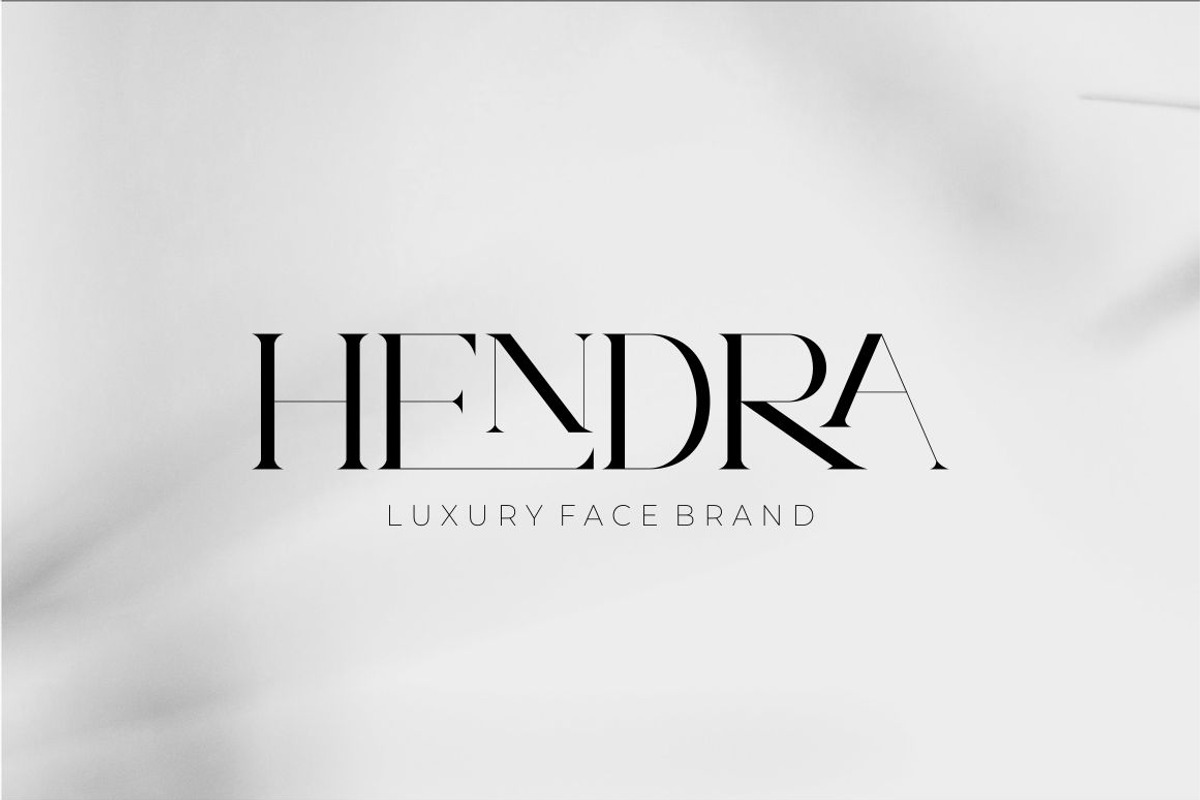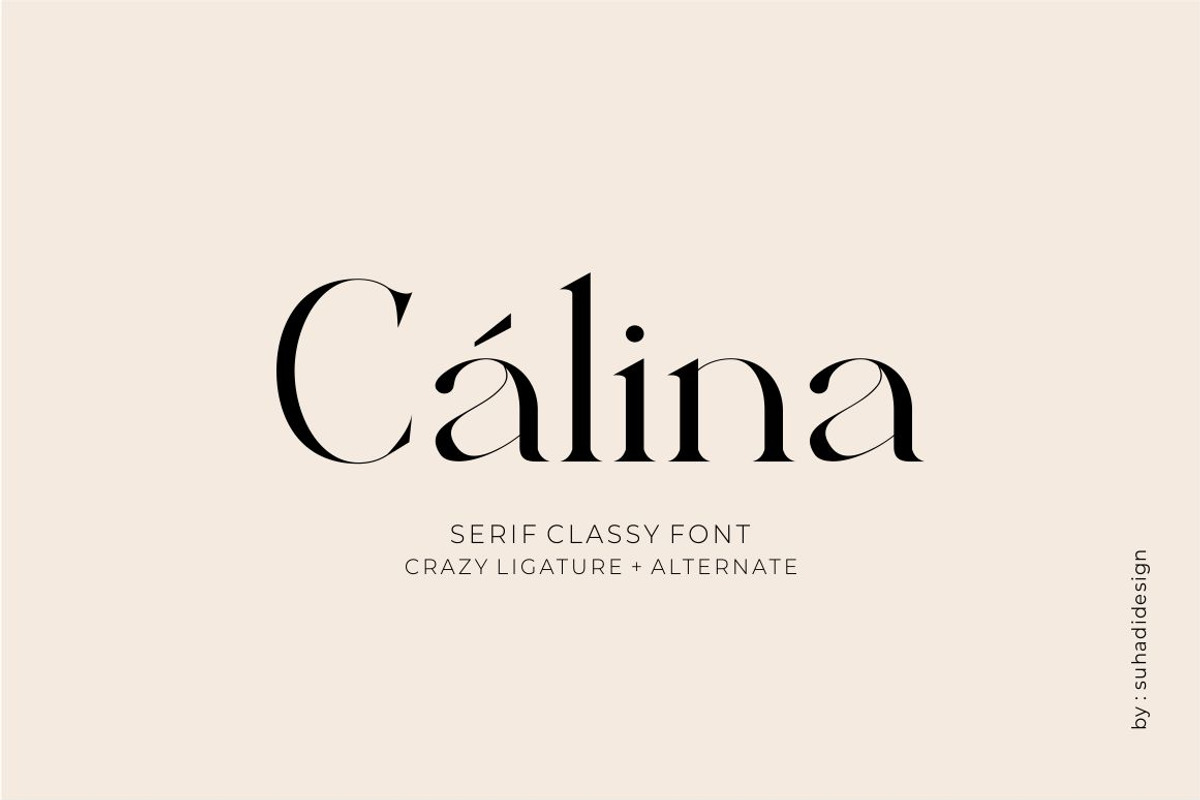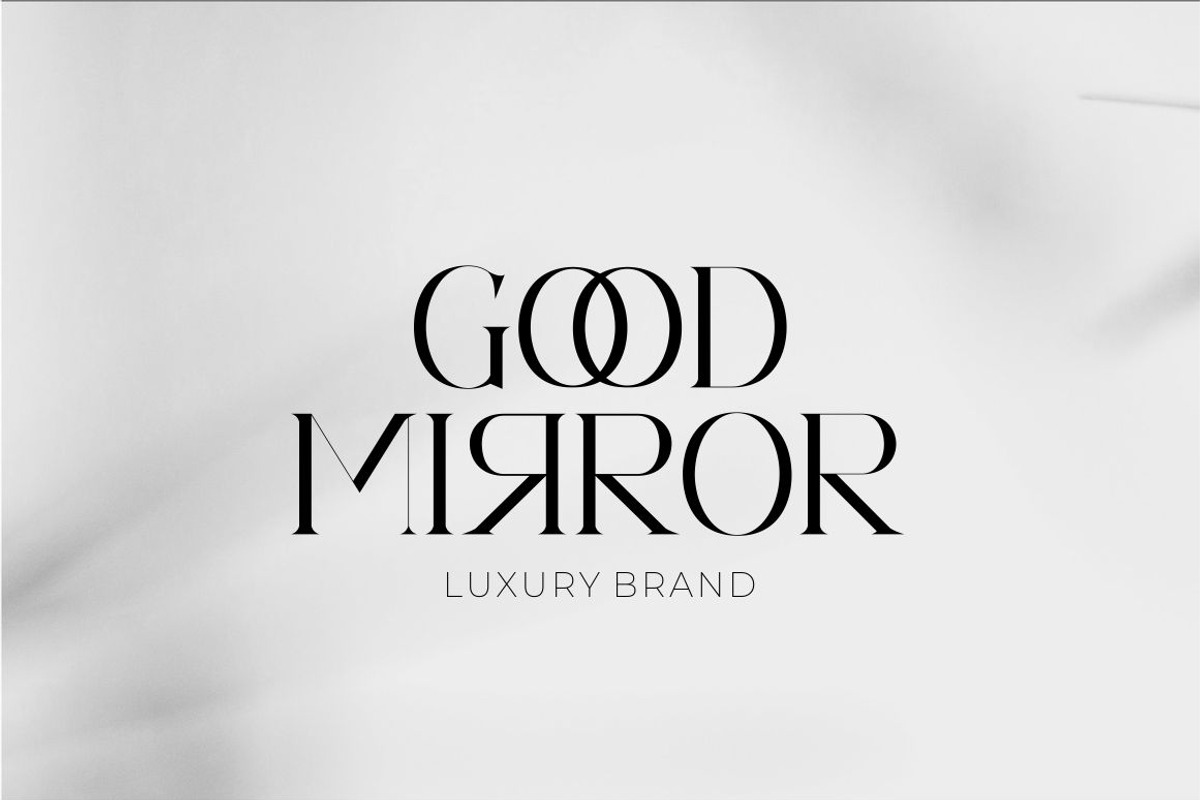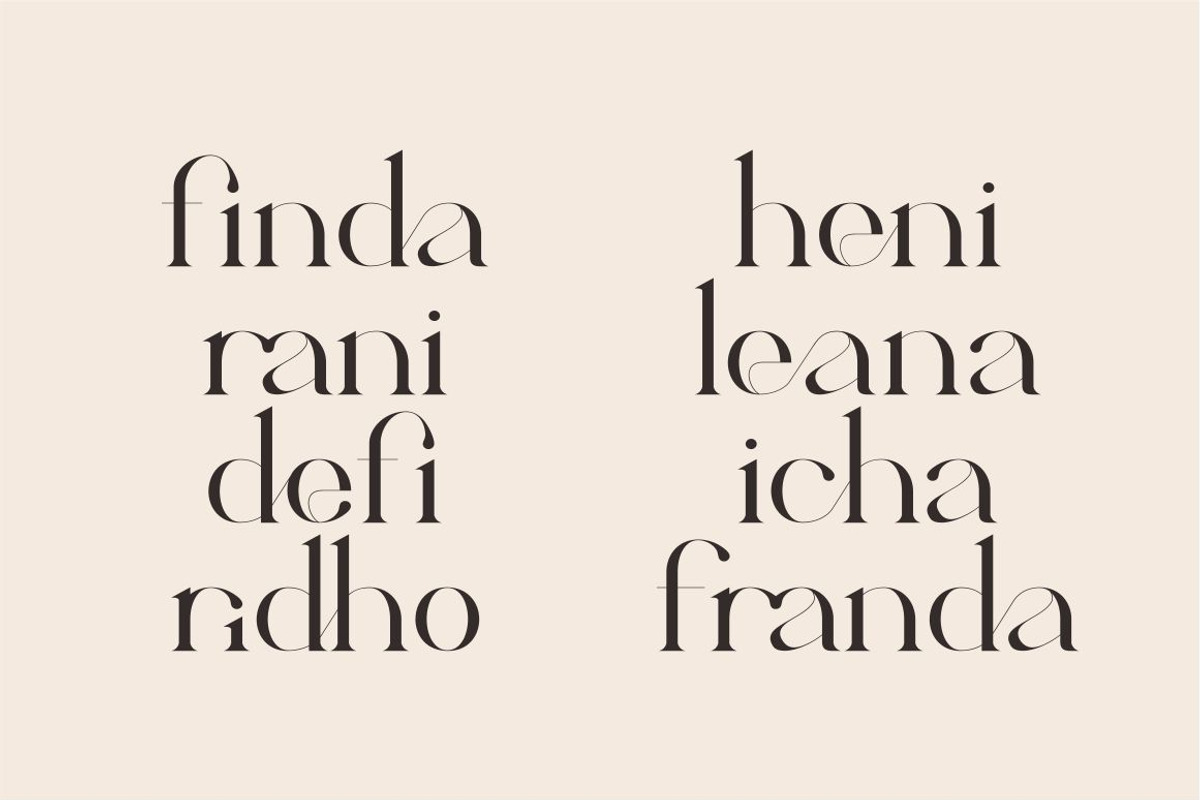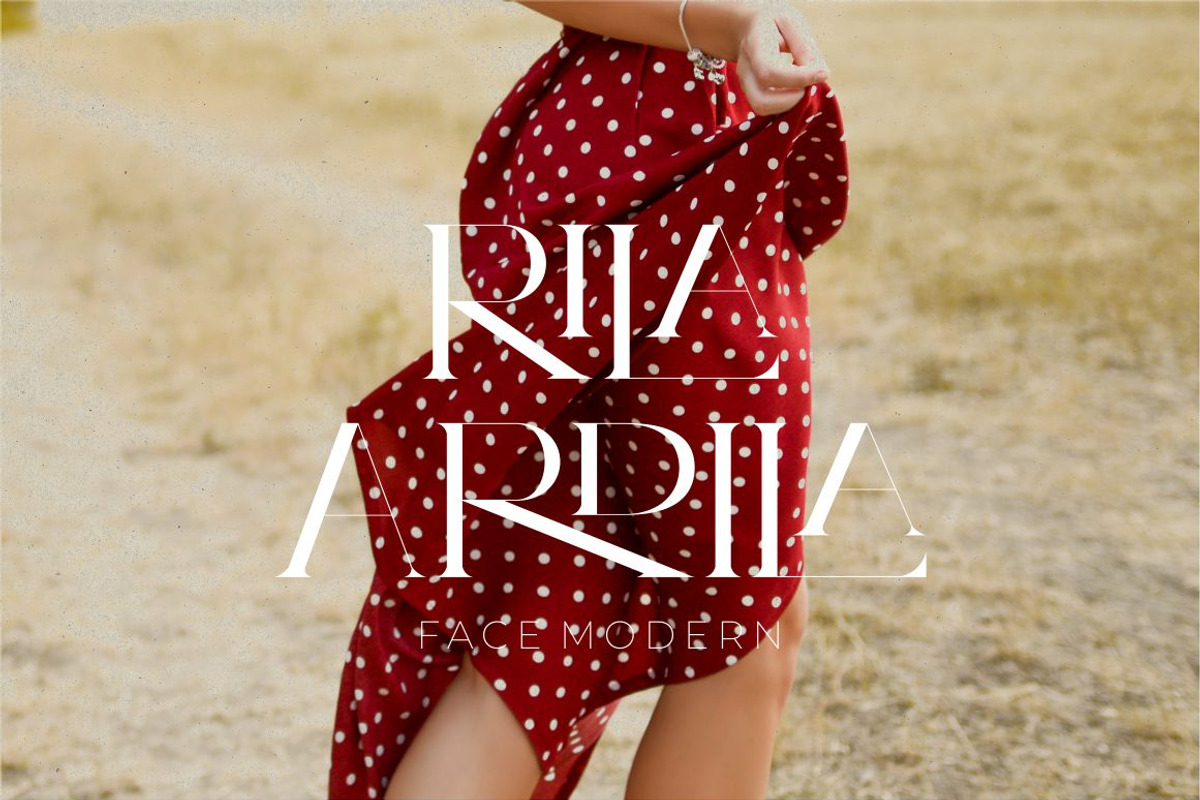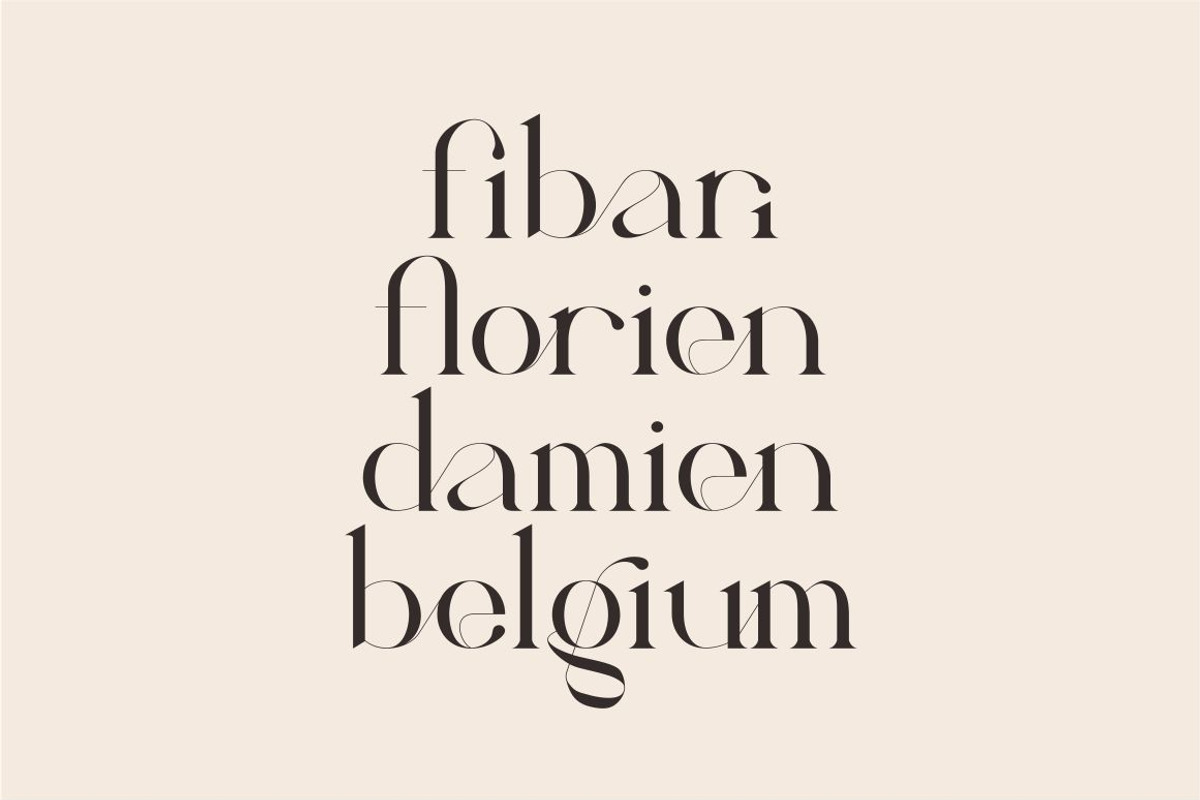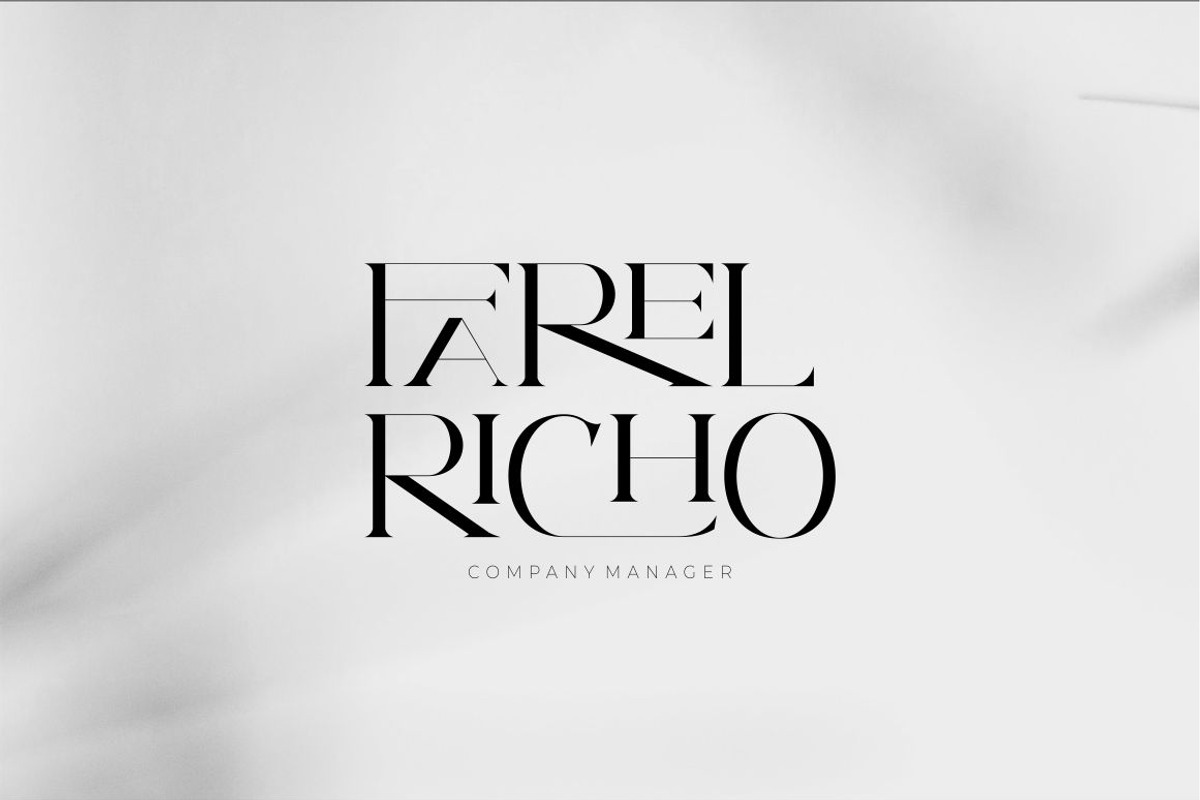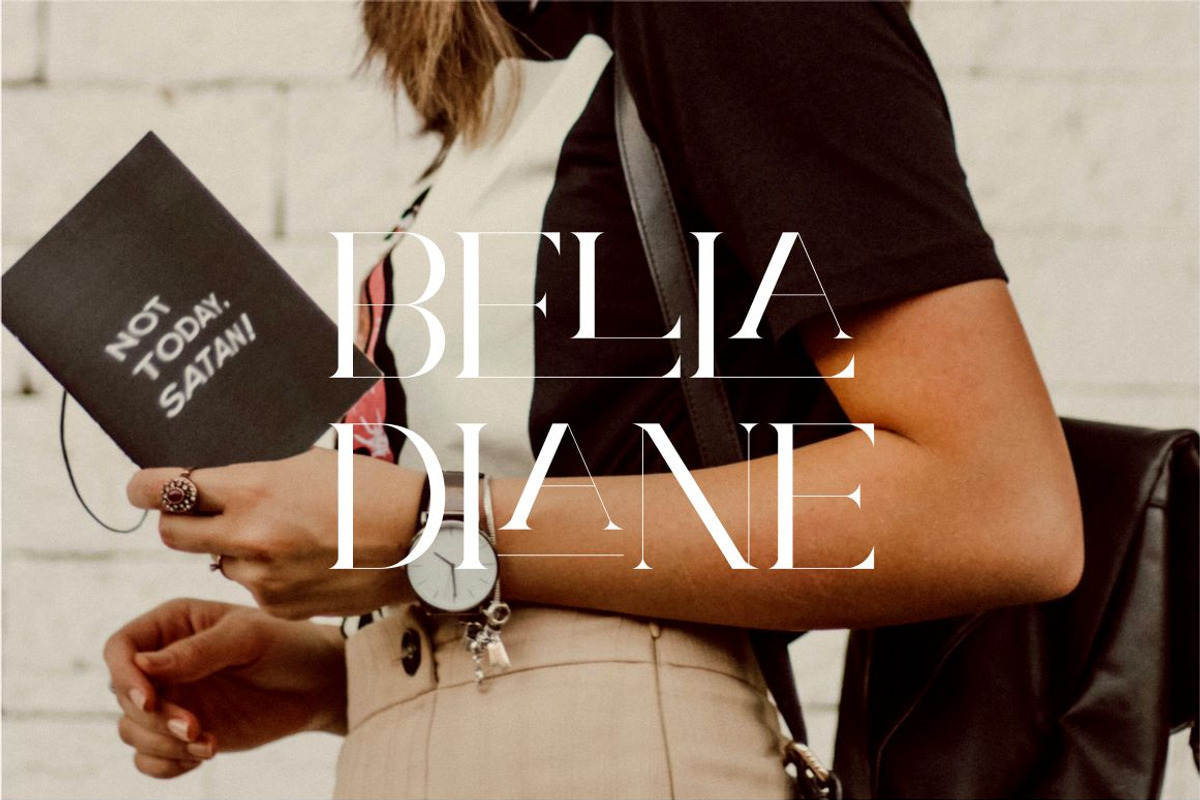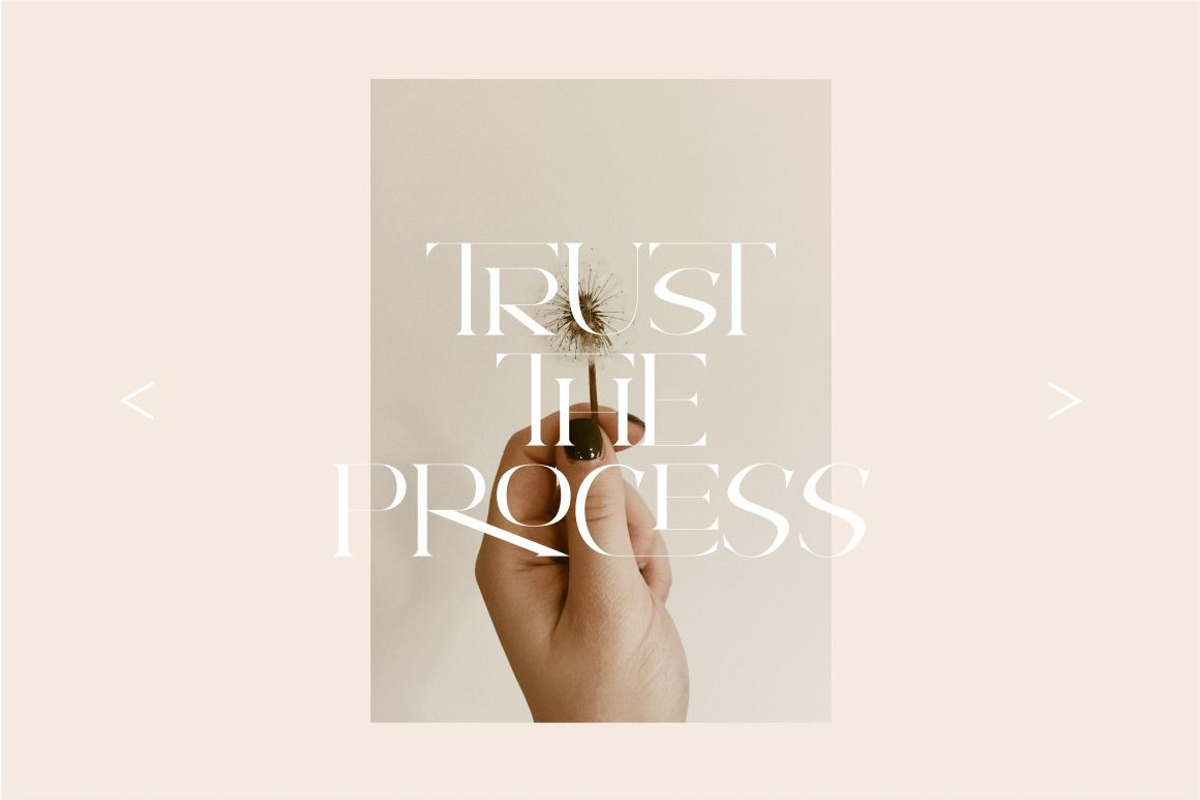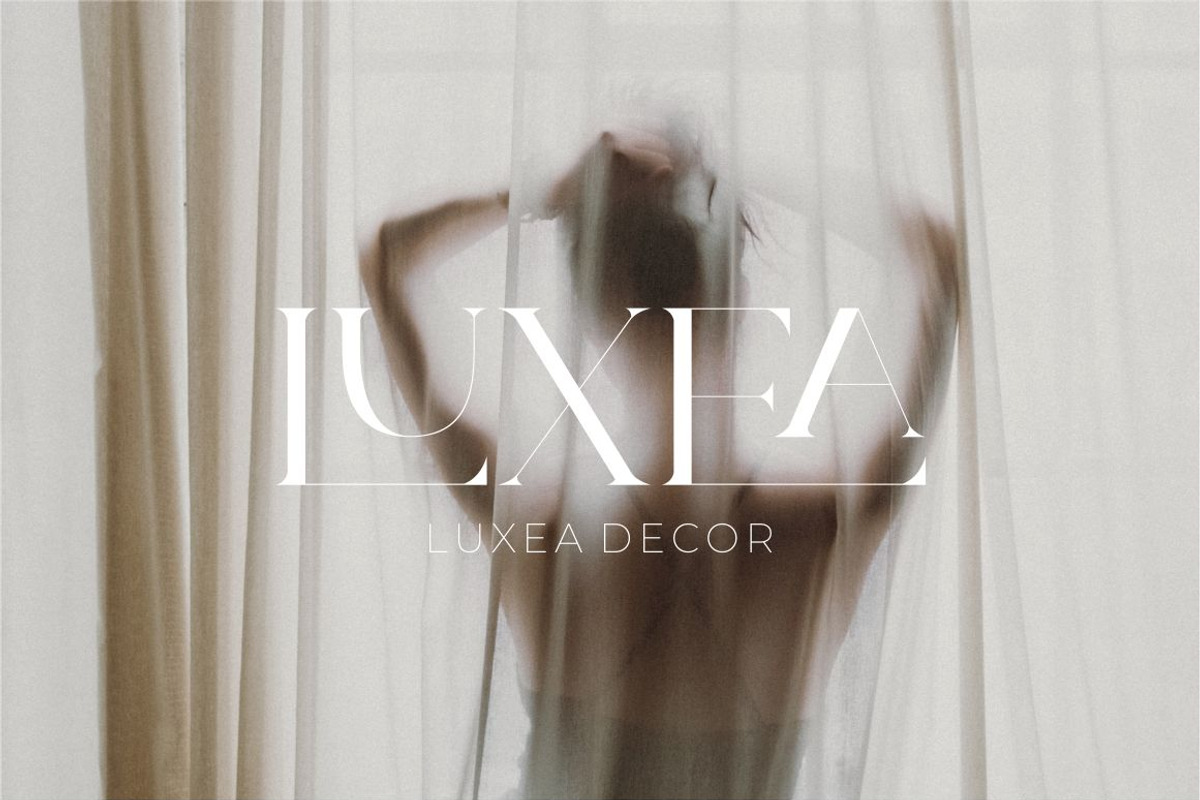
Calina serif classy font
Hi ladies and gentlemen! In accordance with market demand for classy elegant fonts, I decided to make a serif font that suits your views. Calina font is a serif font with a very beautiful minimalist appearance, lots of ligatures + alternates. comes with a classy modern style to become a market favorite. We keep this font looking elegant, classy, easy to read, stylish, attractive and easy to use. Calina Font is a great choice for modern designs, magazines, classy designs, retro designs, newspapers, books, brand names, branding and other projects. The Calina font is here to improve the quality of your designs.
Calina Font is my thirty second Font created in 2023
Feature:
• Standard uppercase and lowercase letters • Lots of ligatures • Alternatives • Multilingual Support • Numbers and punctuation • Modern classy style